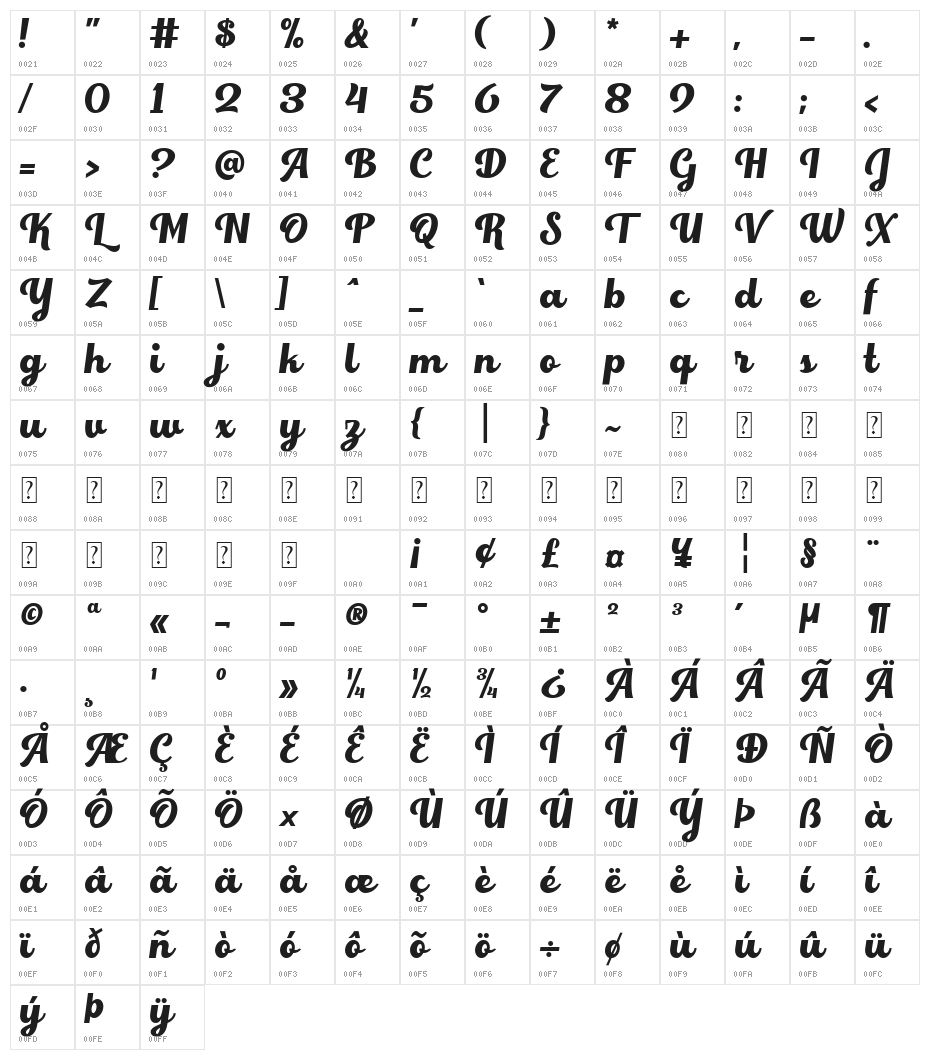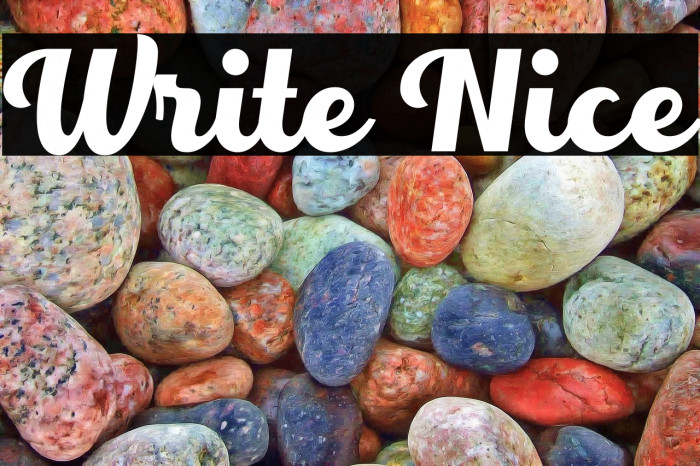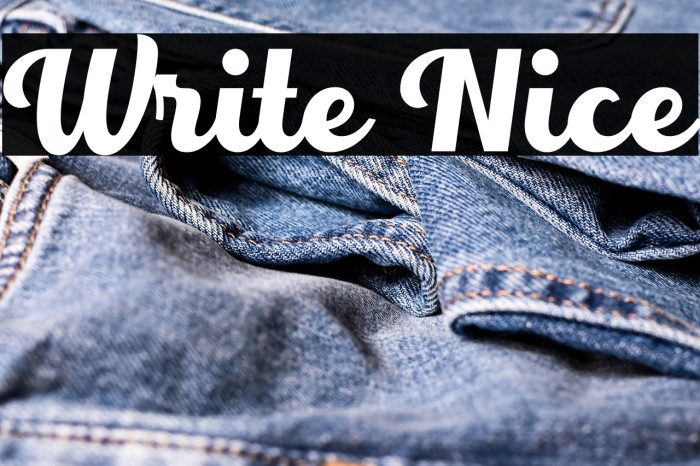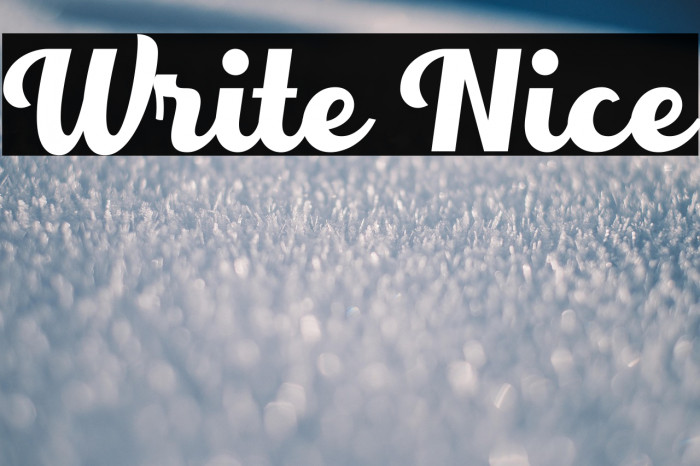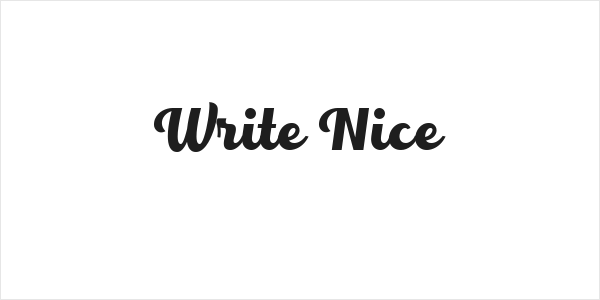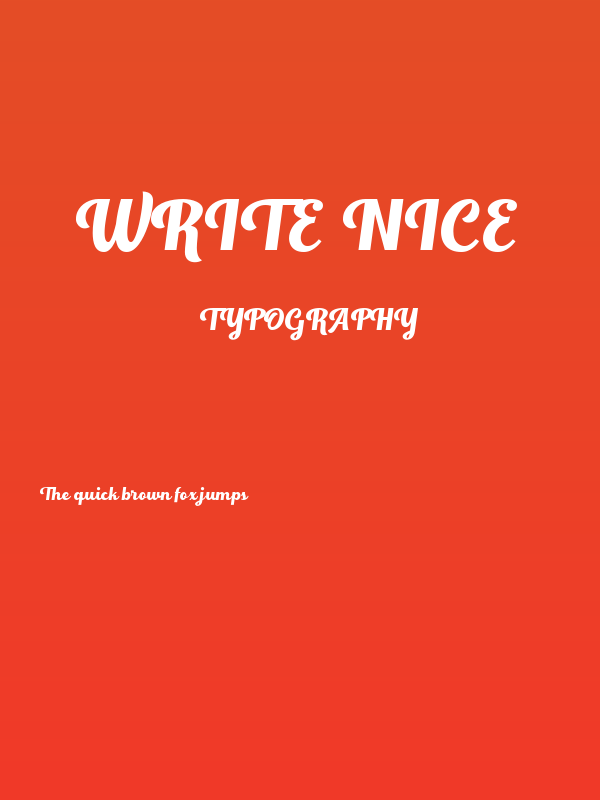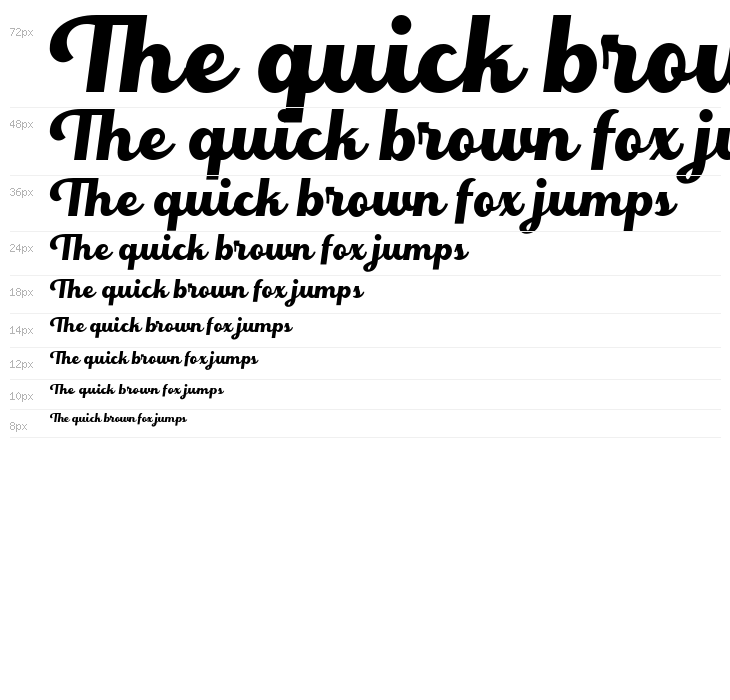
Write Nice Font
Write Nice Description
This font features a bold and flowing script style, characterized by its smooth, connected strokes and a sense of movement. The uppercase letters are elegantly curved, with a slight slant that adds a dynamic feel. The lowercase letters maintain a consistent flow, enhancing readability while retaining a stylish appearance. Numbers are bold and rounded, complementing the overall aesthetic. Special characters are crafted with the same attention to detail, ensuring a cohesive look across all glyphs. The font's design is both modern and classic, making it versatile for various applications.
| Use Case | Logos, Headlines, Invitations |
| Proposed Projects | Ideal for branding projects, wedding invitations, greeting cards, and elegant packaging designs. |